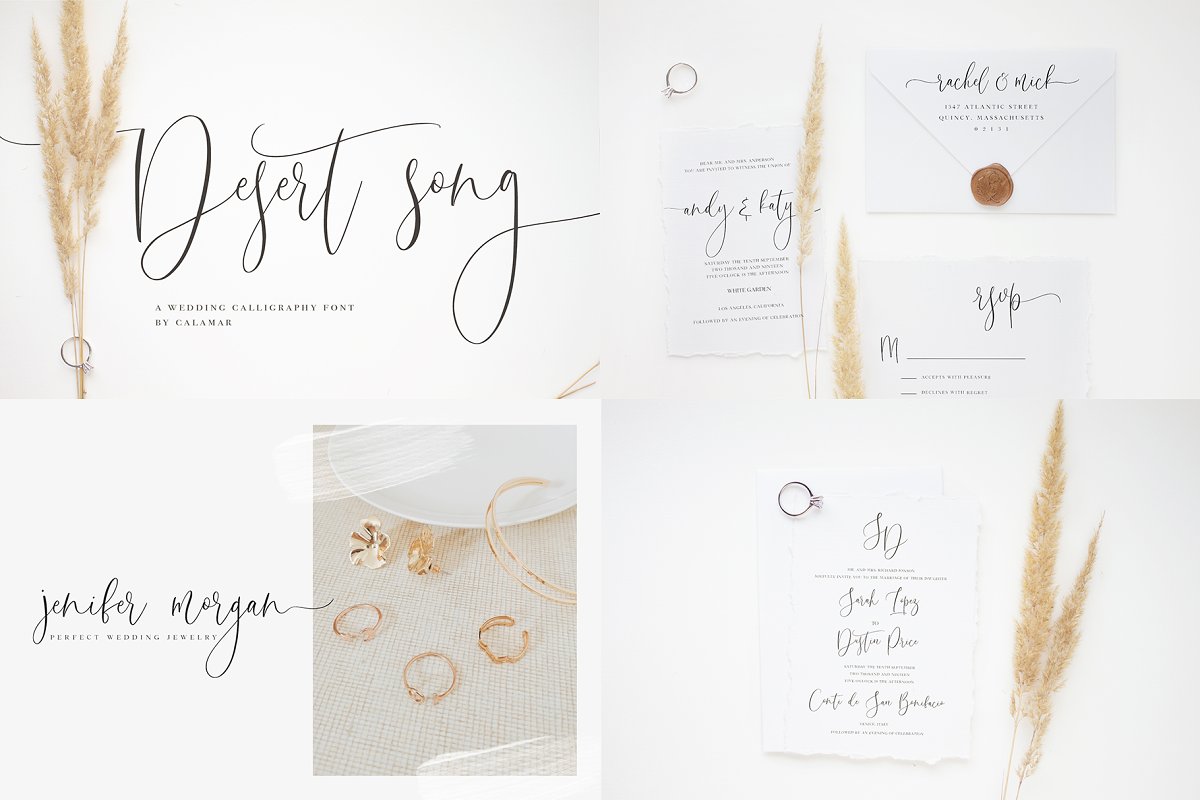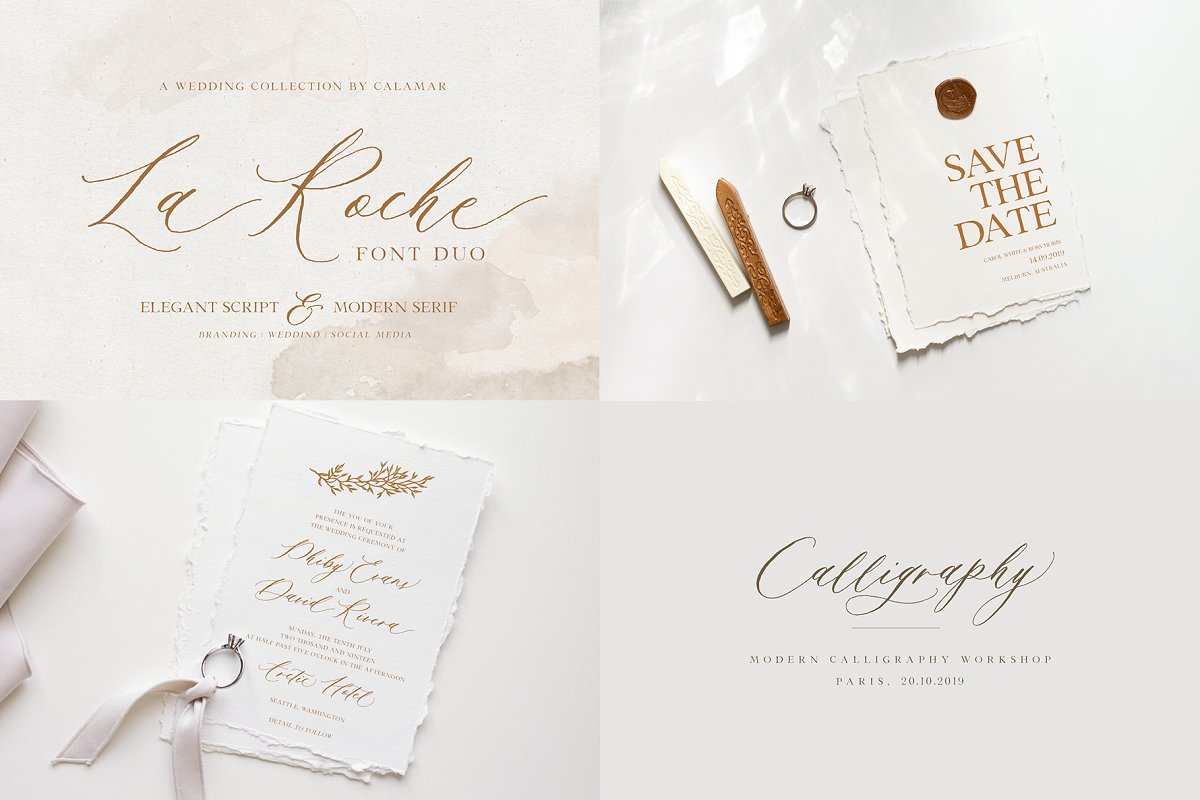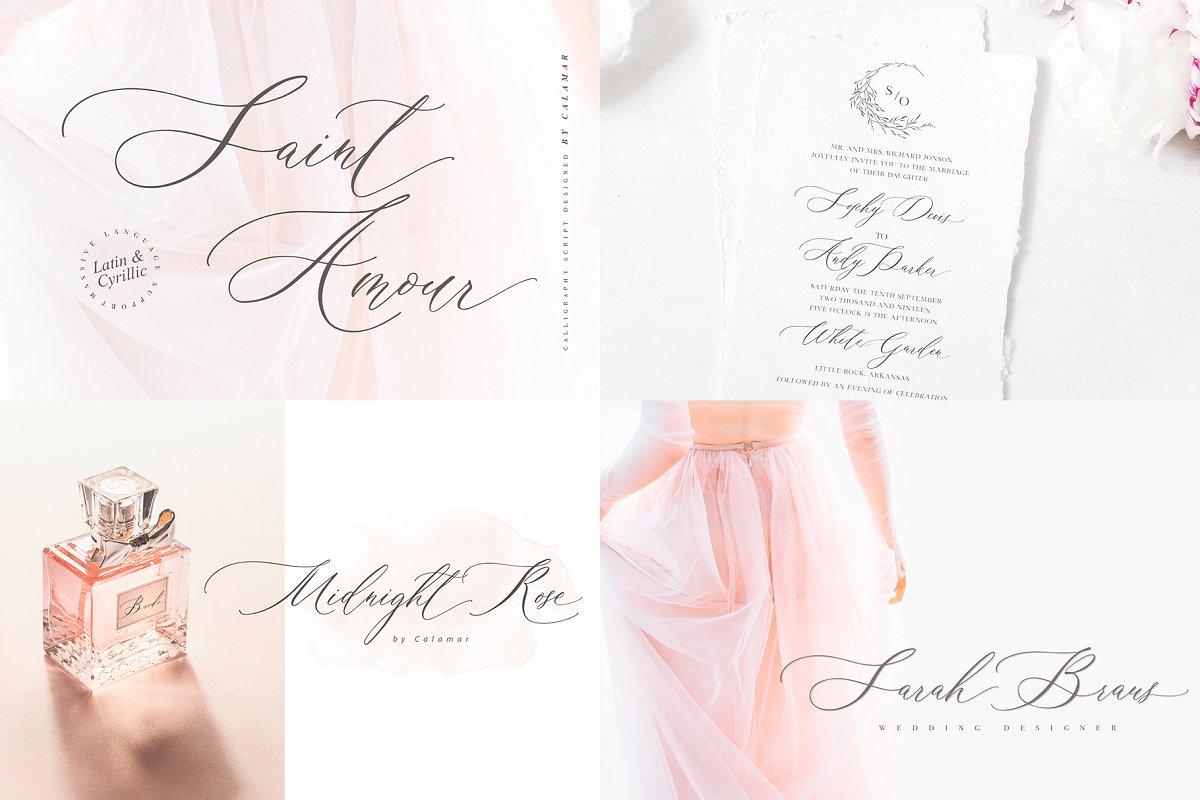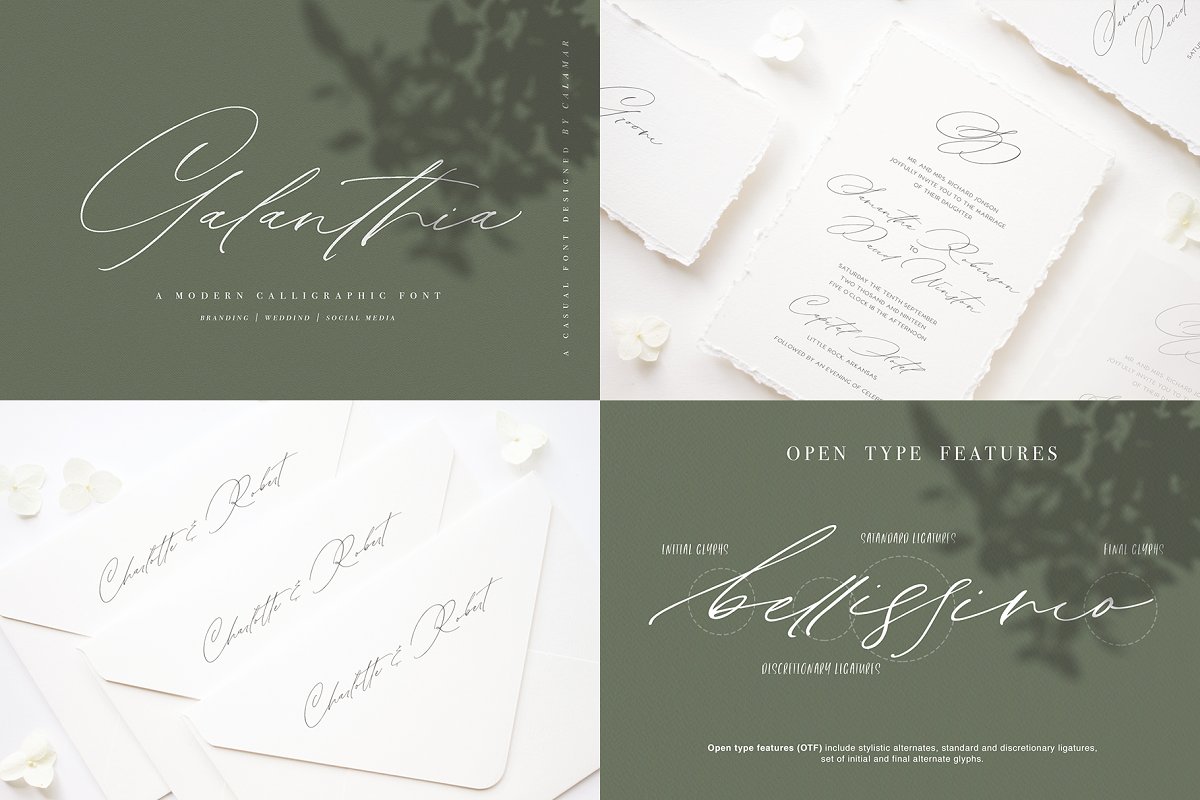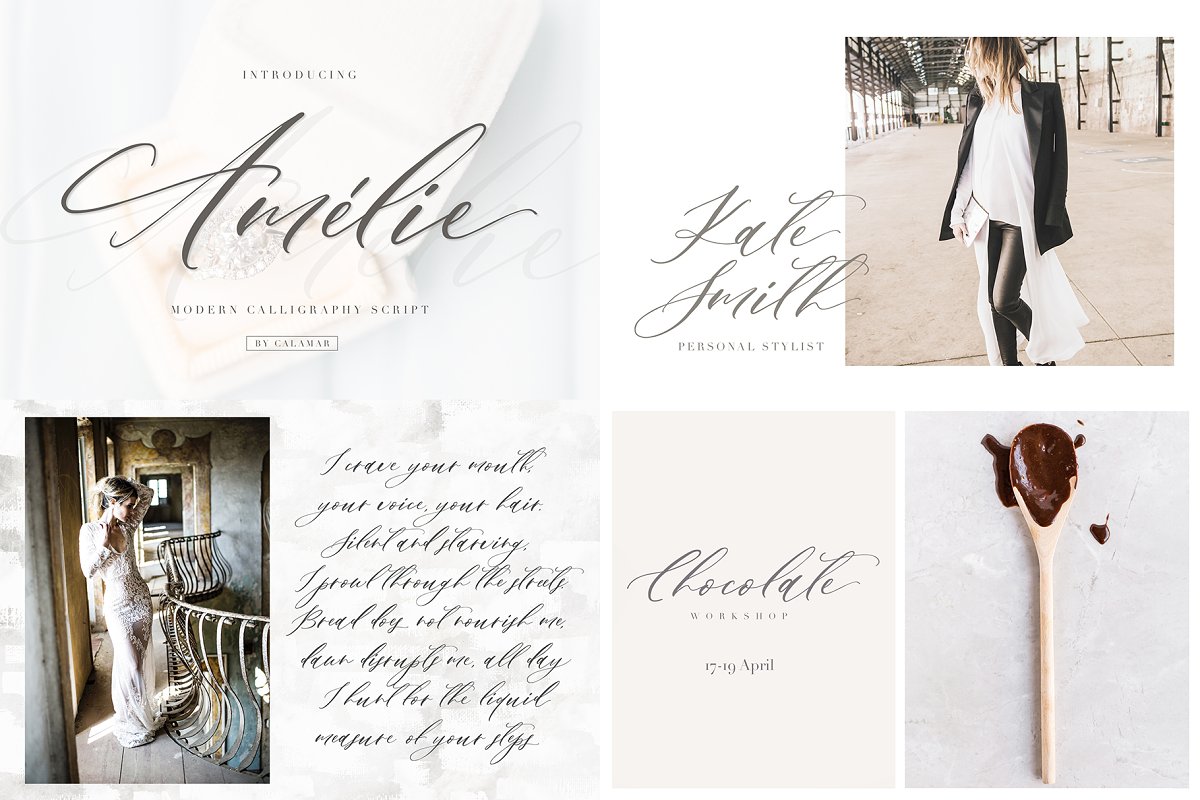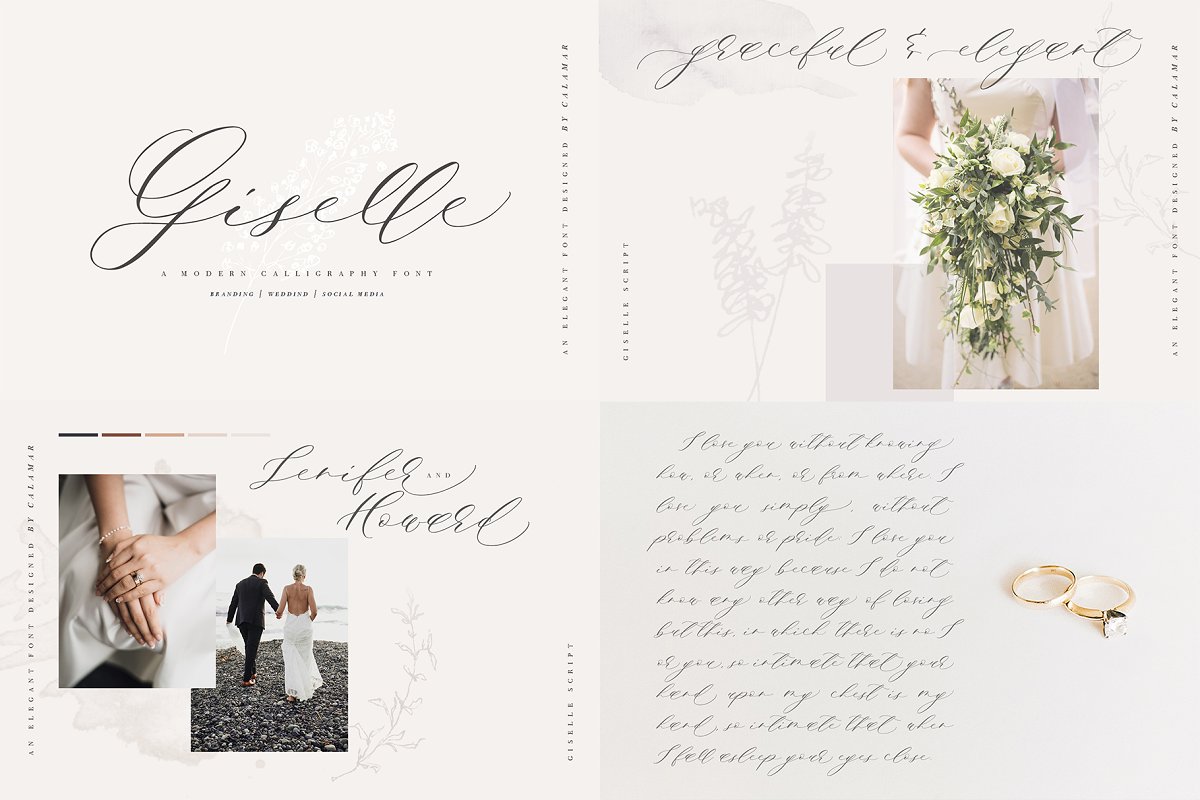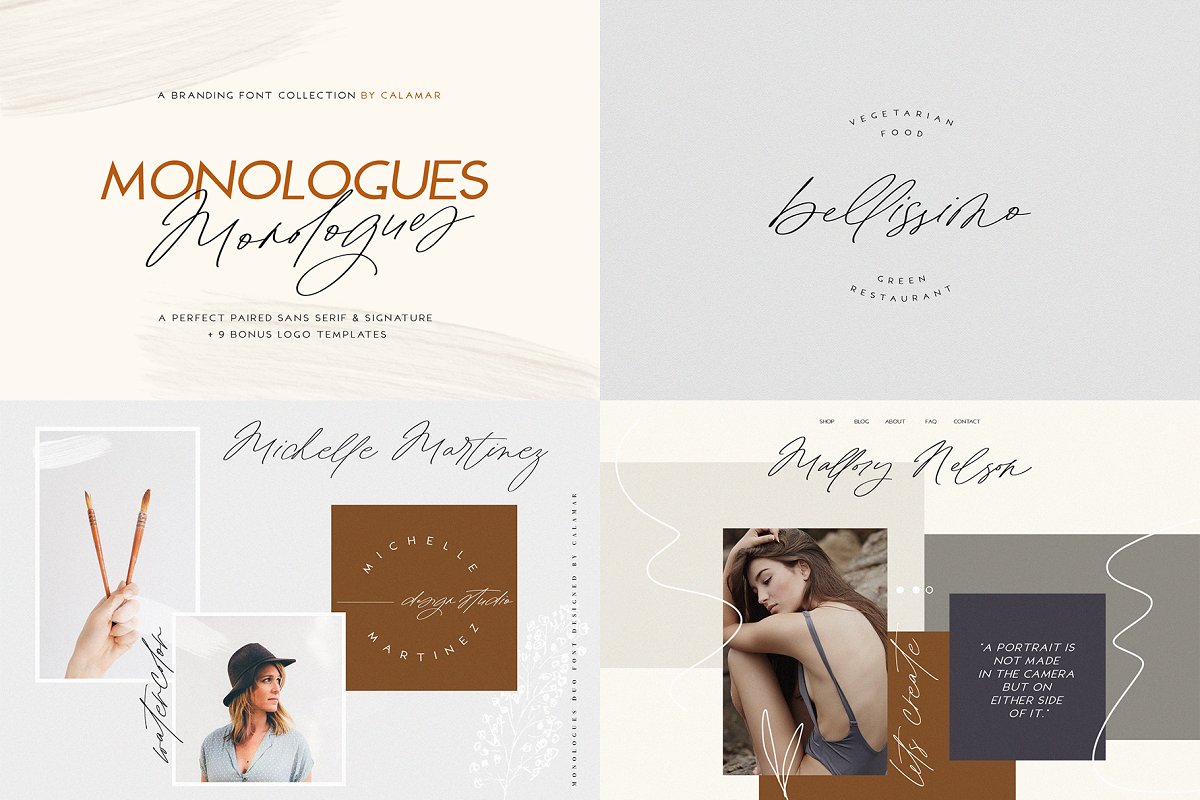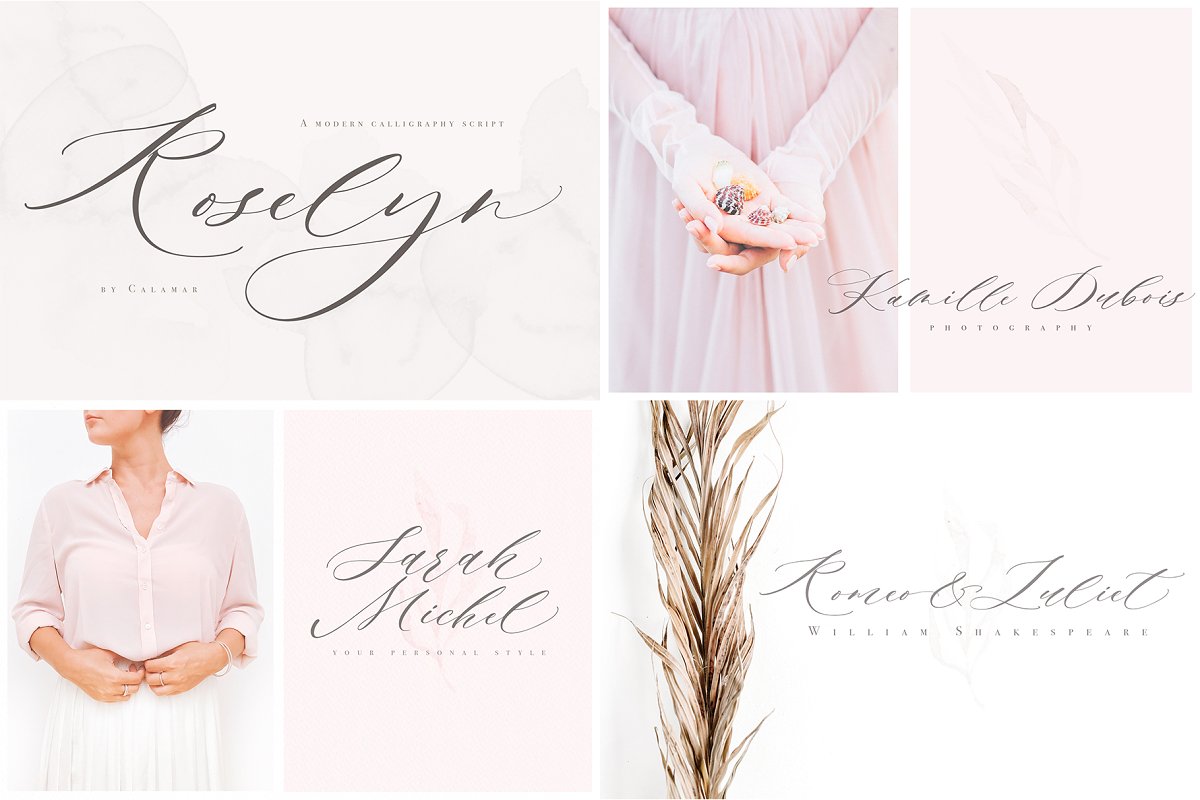
About the Modern Calligraphy Bundle Font
Are you ready for a new bundle of absolutely gorgeous calligraphy scripts? Well, The Modern Calligraphy Font Bundle is READY! It’s perfect for a wedding invitations, save the date cards, fine art papery, feminine branding or personal gift cards, This awesome bundle will save you 89% off the regular price, IMPORTANT!- The preview pictures only show a bit of what is included but for more previews and details please check needed link below